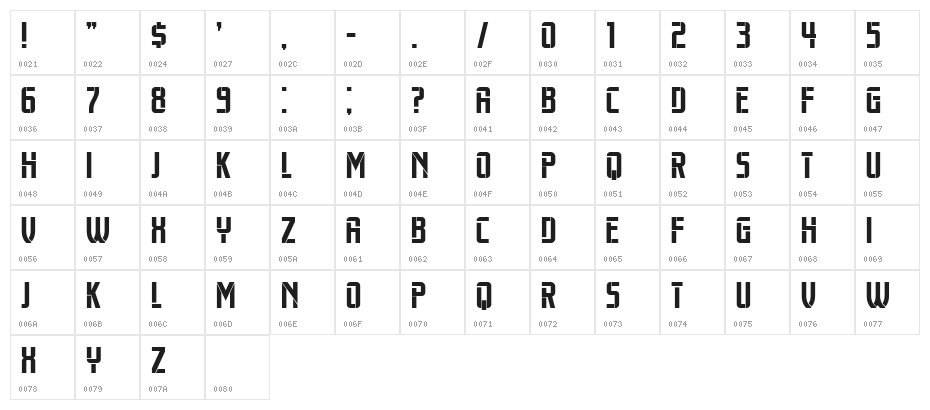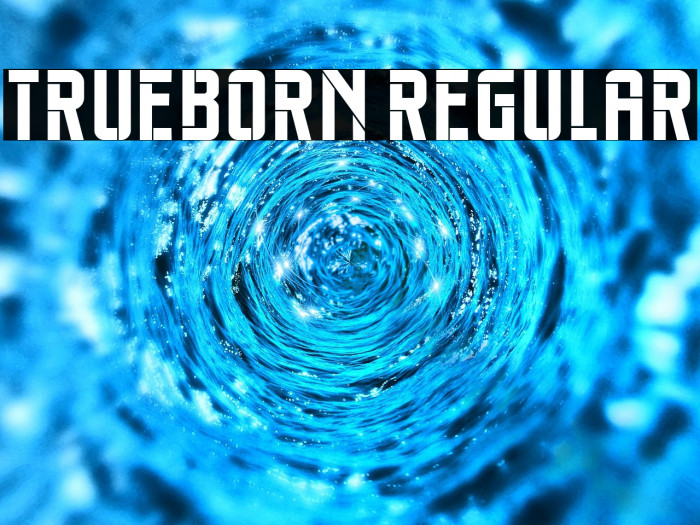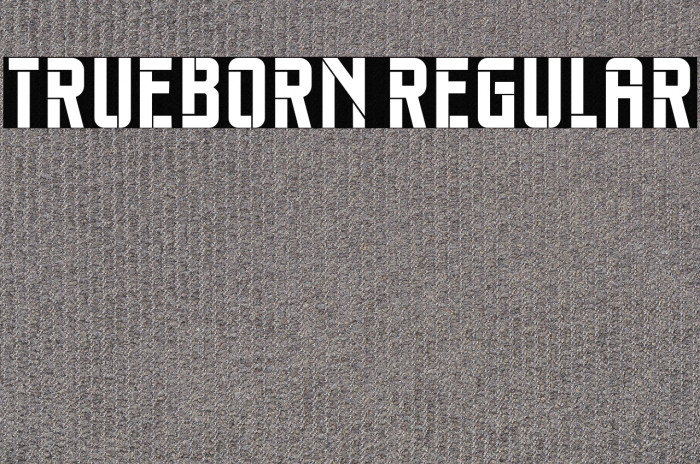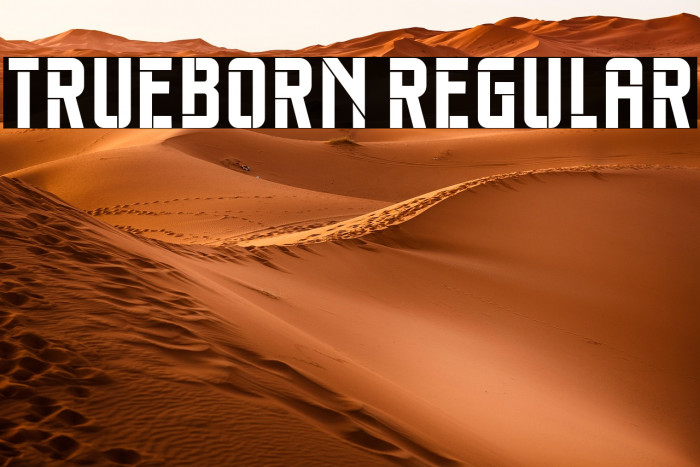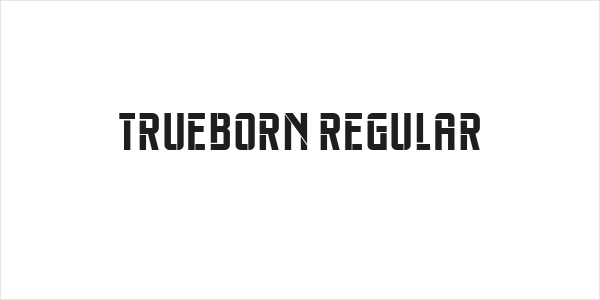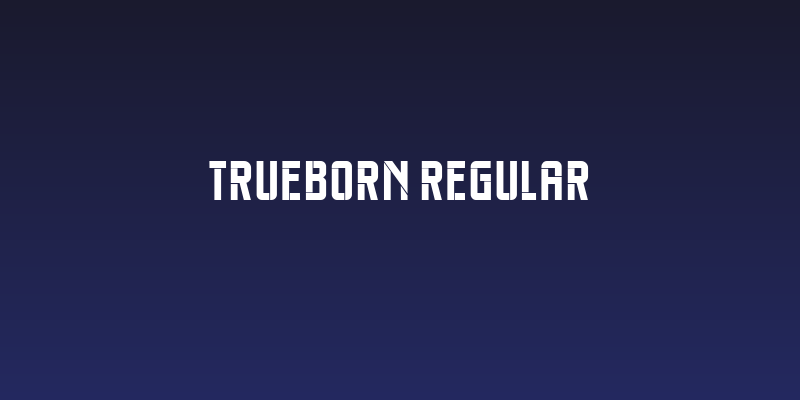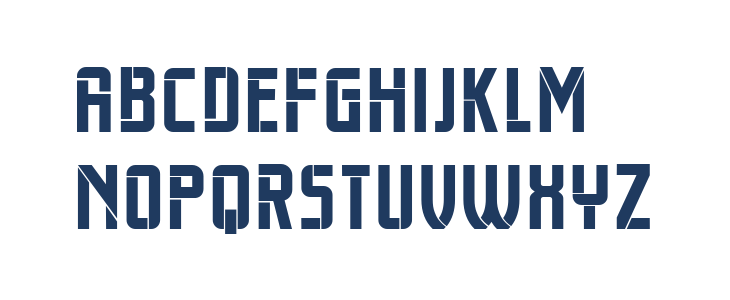
Trueborn Regular Font
Trueborn Regular Description
This font features a bold, geometric design with sharp angles and a modern aesthetic. The characters are constructed with a strong emphasis on vertical and horizontal lines, creating a sense of stability and strength. The uppercase letters are particularly striking, with their uniform height and width, while the lowercase letters maintain a consistent style that complements the uppercase. The numbers are equally bold and clear, making them highly legible. Special characters are designed to match the overall style, ensuring a cohesive look across all text elements. This font is ideal for projects that require a modern and impactful appearance.